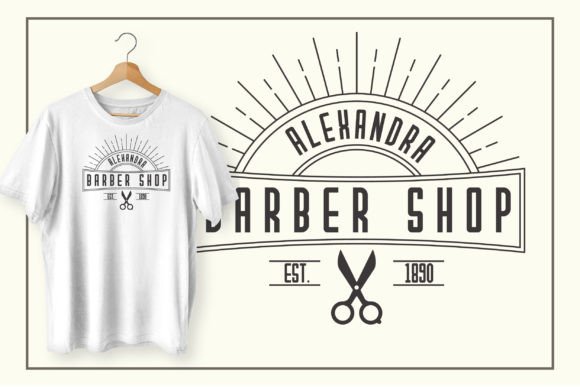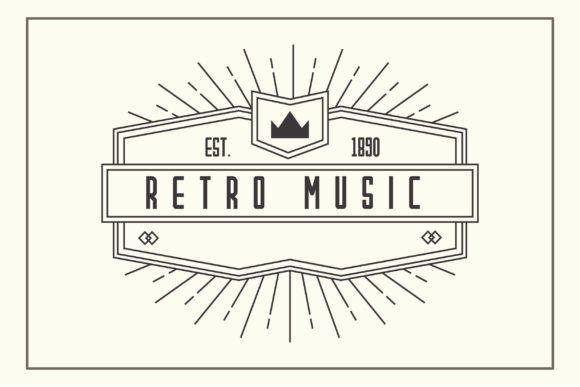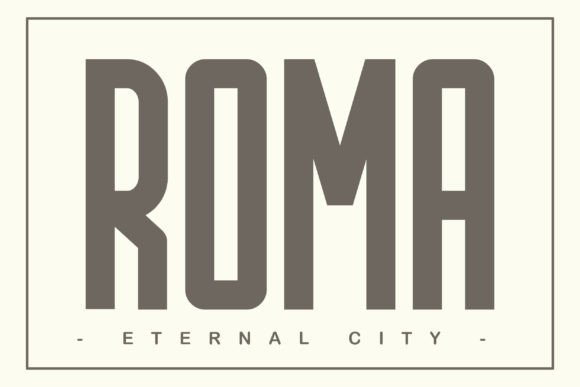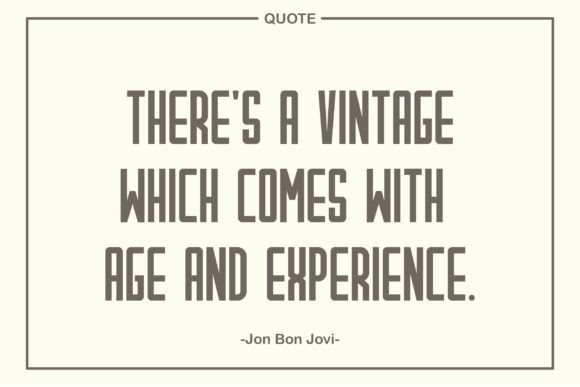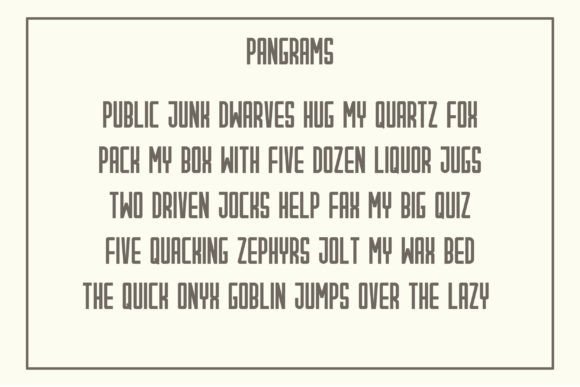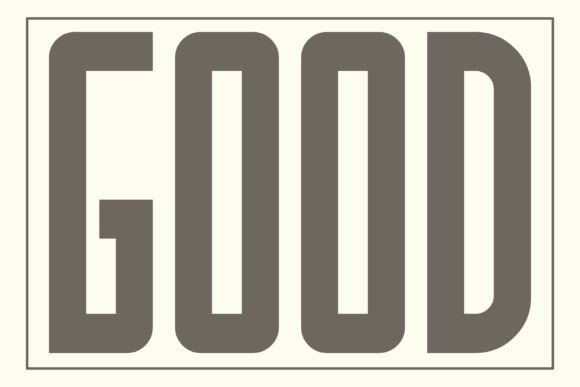
Discover the Timeless Charm of the Bandung Font
Do you ever find yourself scrolling through old photographs or browsing vintage markets, feeling an inexplicable connection to the past? For designers, this nostalgia can be a powerful catalyst for creativity. It’s in these moments that we remember the beauty of bygone eras and the unique character they bring to our work.
One font that embodies this nostalgic charm is the Bandung Font, a robust display font designed to add a touch of boldness and personality to your artwork. Whether you’re creating impactful logos or statement t-shirts, this vintage-inspired font is the perfect tool to capture the essence of a bygone era. With its striking design, the Bandung Font is a valuable asset for designers looking to add a layer of depth and character to their creations.
Bandung Font Key Features
- Font Family: Bandung Font is a sans-serif font family designed to be highly legible and versatile for various applications.
- Font Sizes: Bandung Font is available in multiple font sizes, including regular (400), medium (500), bold (700), and extra bold (900) weights.
- Unique Characteristics: Bandung Font features a clean and modern design with rounded corners and subtle curves, making it suitable for branding, signage, and digital applications.
Bandung Font Review
At first glance, the Bandung Font is quite striking. I appreciate the unique blend of modern and traditional elements that sets it apart from other sans-serif fonts. ✨ The font’s curves and lines evoke a sense of elegance and sophistication, making it perfect for designs that require a touch of refinement.
One of the standout features of Bandung Font is its versatility. It can be used in a wide range of applications, from corporate branding to advertising and editorial content. ✨ The font’s legibility is also impressive, ensuring that your message gets across clearly and effectively.
Limits and Areas for Improvement
While the Bandung Font excels in many areas, there are a few limitations to consider. ⚠️ The font may not be as effective for titles or headings, as it can be a bit too delicate. Additionally, the font’s condensed forms can sometimes appear pixelated, particularly at smaller font sizes.
- May not be suitable for titles or headings
- Potential for pixelation in condensed forms
Overall, I’m impressed with the Bandung Font. Its unique design, versatility, and legibility make it an excellent choice for a wide range of applications. However, it’s essential to consider the potential limitations when deciding whether to use this font for your next project.
Getting the Most Out of Bandung Font
For the best results, use the Bandung font in conjunction with bold, italic, or underlined text to add emphasis and create visual interest.
Experiment with different font sizes and colors to find the perfect balance for your design.
The Bandung font is ideal for:
- Graphic design projects
- Print and digital marketing materials
Alternatives to Bandung Font
Playfair Display is an elegant serif font ideal for use in titles, headings, and body text where a touch of sophistication is required. Its refined lines and ornate details evoke a sense of luxury and sophistication, making it suitable for high-end branding, fashion, and fine art applications.
Playfair Display is more ornate than Bandung Font, with more intricate details and flourishes. It’s better suited for formal or high-end designs, whereas Bandung Font is more versatile and can be used in a wider range of applications.